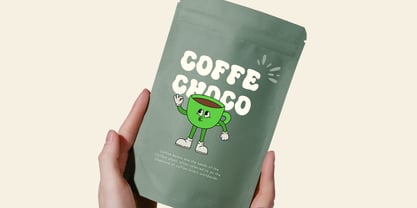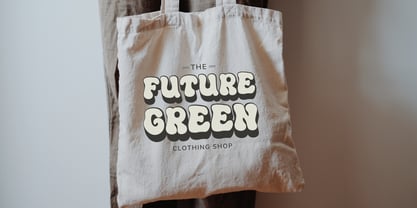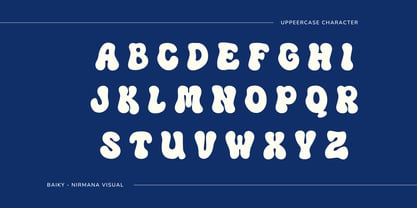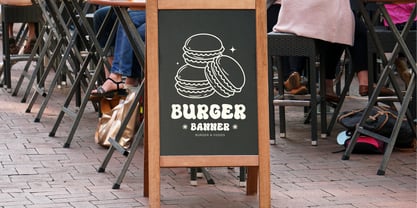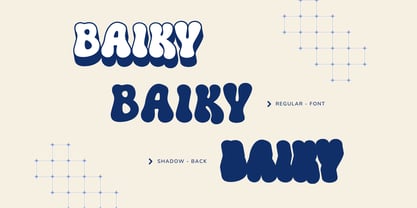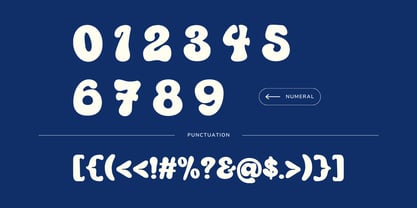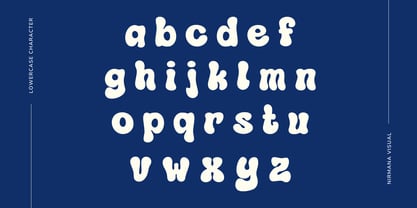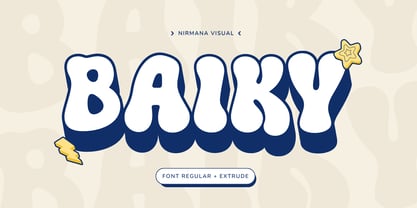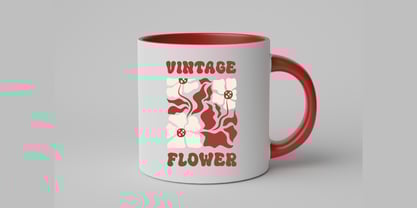
Retro Baiky
by Nirmana Visual
The Retro Baiky Font Family was designed by Sigit Dwipa and published by Nirmana Visual. Retro Baiky contains 2 styles and family package options. More about this family
Retro Baiky is a bold retro sans display font with a striking extruded style, perfect for vintage-inspired designs. Its thick, rounded letterforms and dimensional shadowing evoke a nostalgic yet modern feel, ideal for posters, branding, and headlines. With a balance of playfulness and structure, Retro Baiky stands out in both digital and print media. Elevate your designs with its dynamic retro aesthetic and eye-catching depth. You get in two styles font Regular and Extrude.
Designers: Sigit Dwipa
Foundry: Nirmana Visual